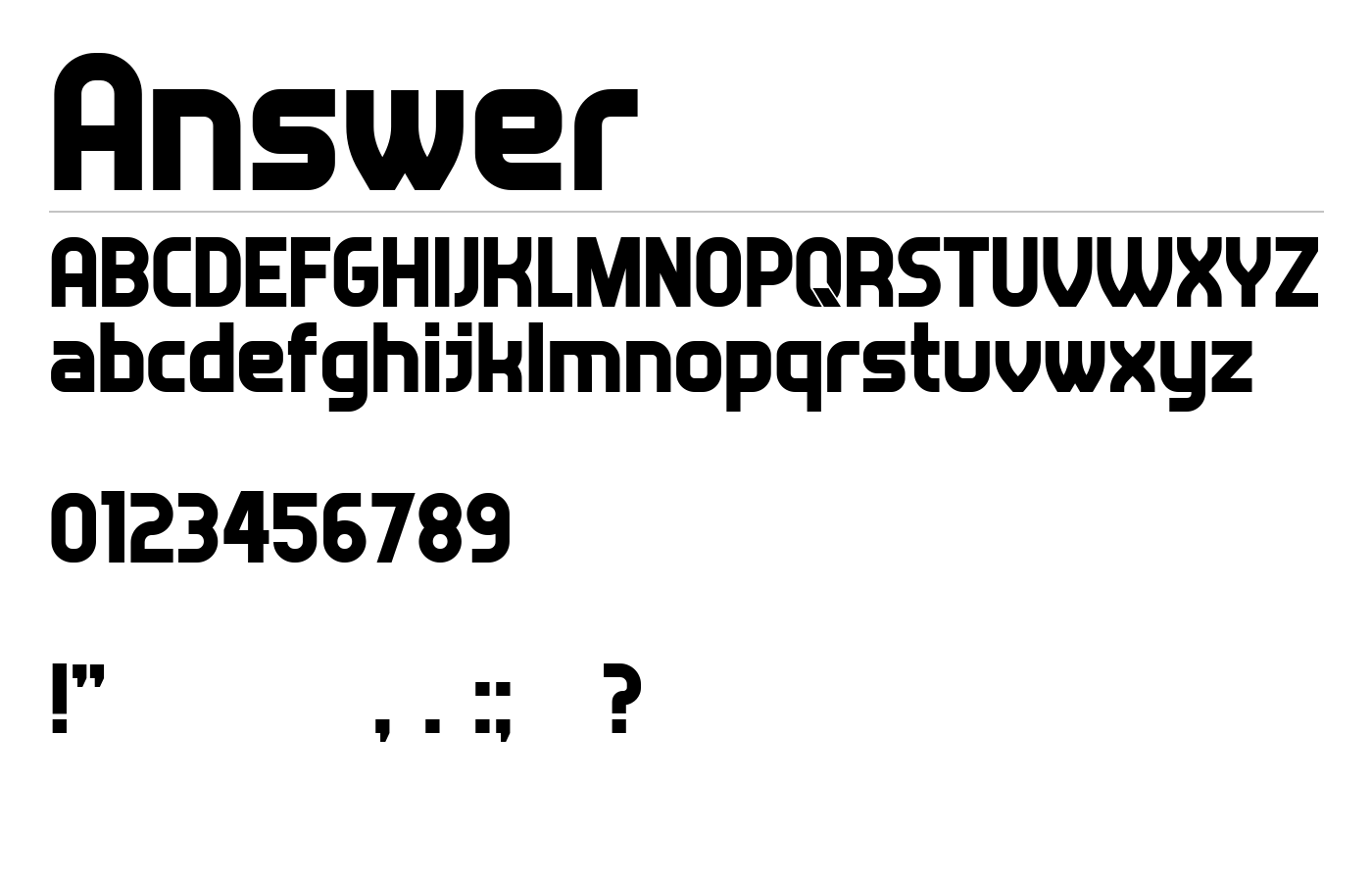
Answer Font is a bold, condensed sans serif typeface with a modern, geometric style characterized by sharp edges and straight lines. Its strong, blocky letterforms and high x-height make it striking and highly readable, ideal for impactful headlines, logos, and branding that seeks a contemporary, confident tone. This font works especially well in design contexts where a bold, urban, and futuristic feel is desired.
Answer Font
About Answer Font
| Font family | Answer Font |